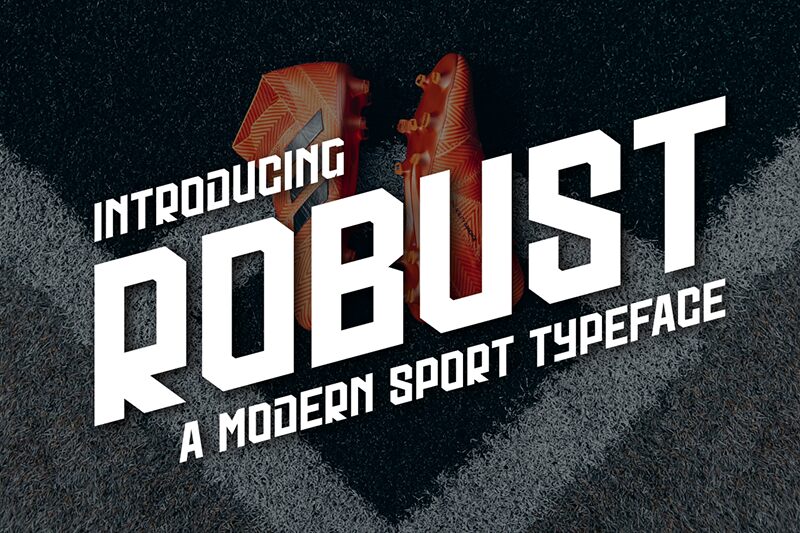
ROBUST
Robust font by Gilang Ternadho is a techno display typeface with a condensed width. Its structure feels mechanical and industrial but captivates through its minimalist style and geometric shapes. A clear impact is guaranteed with this free display font that’s suitable for an array of use cases.
Use Robust in strong advertising text, brand designs, posters, movie titles, billboards, social media posts, magazine covers, etc.